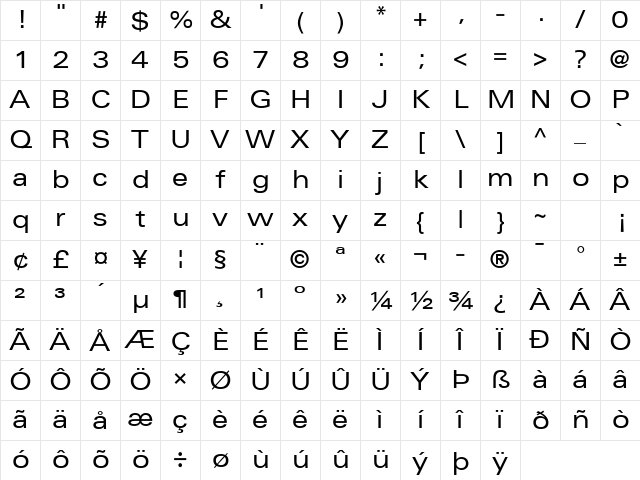
Univers Extended Regular
Design Context for Univers Extended
Univers Extended is a composed and adaptable typeface that performs quietly and consistently across a wide range of design contexts.